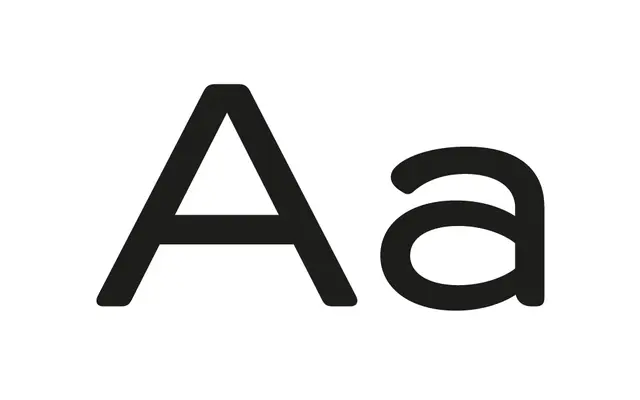
Trio Grotesk
A three-weight revival of Kaart Antieke (Lettergieterij Amsterdam, 1909) with italics, preserving letterpress ink-spread features and a wide, generously spaced design.
Trio Grotesk is a revival of Kaart Antieke, a small-size grotesque published by Lettergieterij Amsterdam in 1909 for society printing: copperplate engraved invitations, announcements, menus, stationery and calling cards. The face was used by Piet Zwart for his never officially published essay 'Van oude tot nieuwe typografie', and Florian Schick discovered the only two remaining copies at the Meermanno Museum in Den Haag. Rather than working from the metal type itself, Schick Toikka enlarged and examined the printed image to replicate the impression as faithfully as possible, preserving features unique to letterpress such as soft stroke endings and junctions caused by ink spread and pressure, alongside the wide stance, loose spacing and large lowercase required of such diminutive type. The single found style is expanded to three weights plus italics with Latin Extended character sets, OpenType figure sets and a batch of arrows, ornaments and dingbats.
Schick Toikka describe Trio Grotesk as a revival of Kaart Antieke, published by Lettergieterij Amsterdam in 1909, the small-size society-printing grotesk that Piet Zwart used for his unpublished essay 'Van oude tot nieuwe typografie'. Florian Schick discovered the only two remaining copies at the Meermanno Museum in Den Haag.